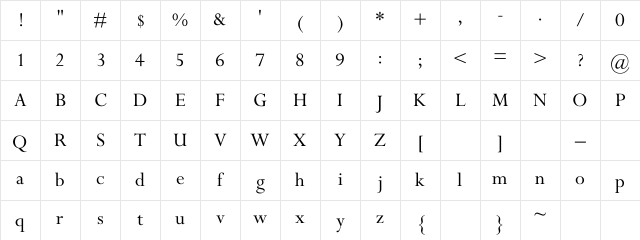
Oxford Regular Free Font
Oxford Regular
Design Context for Oxford
Oxford is a composed and adaptable typeface that performs quietly and consistently across a wide range of design contexts.